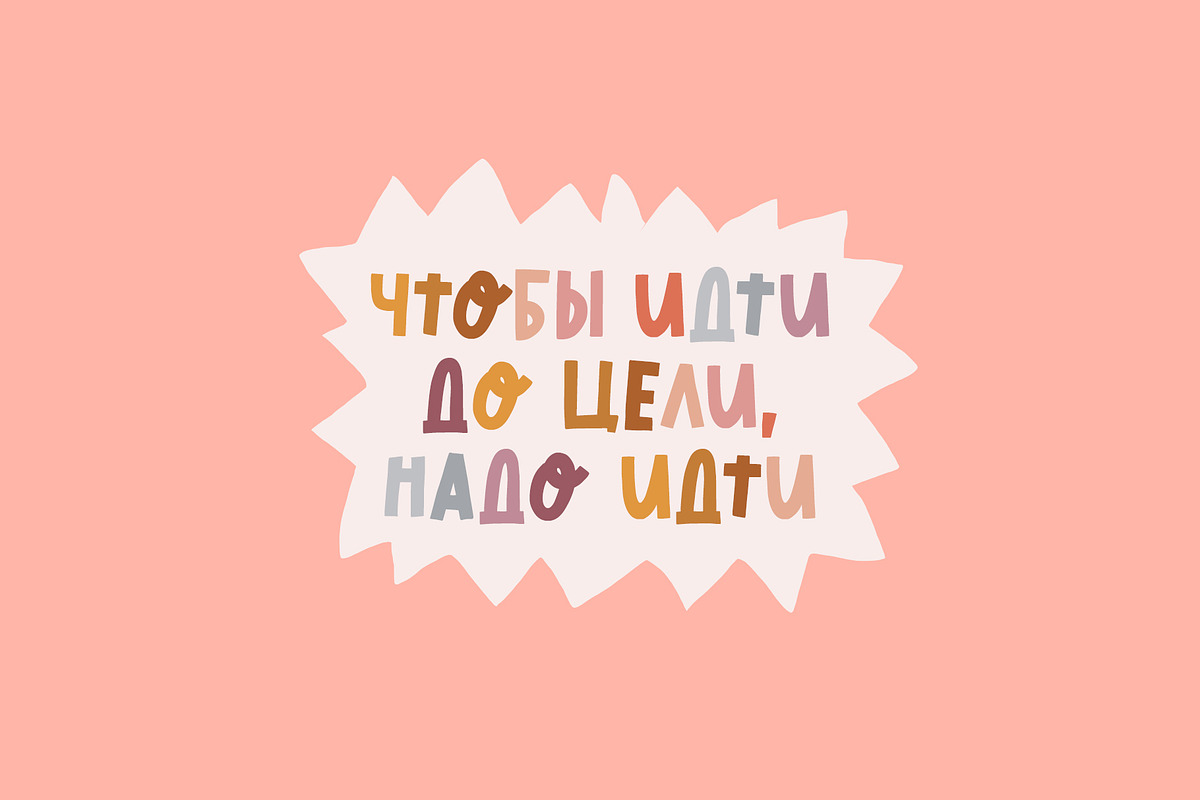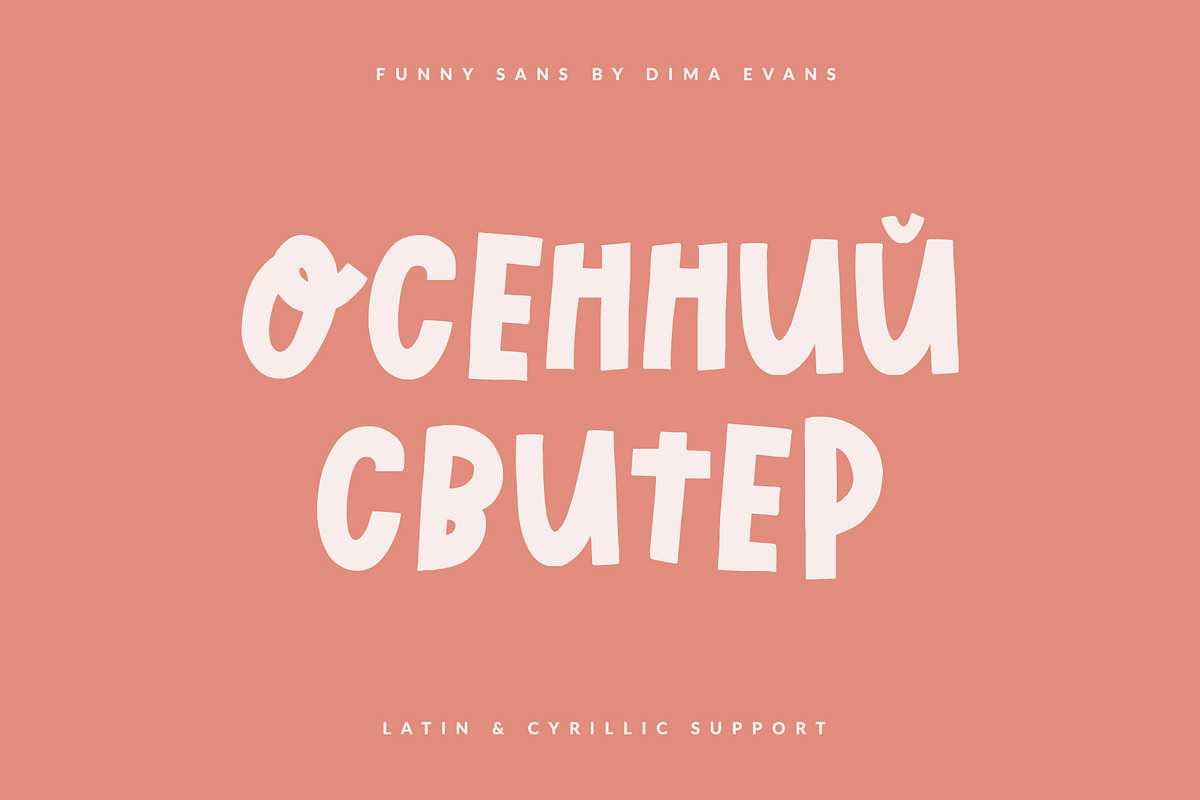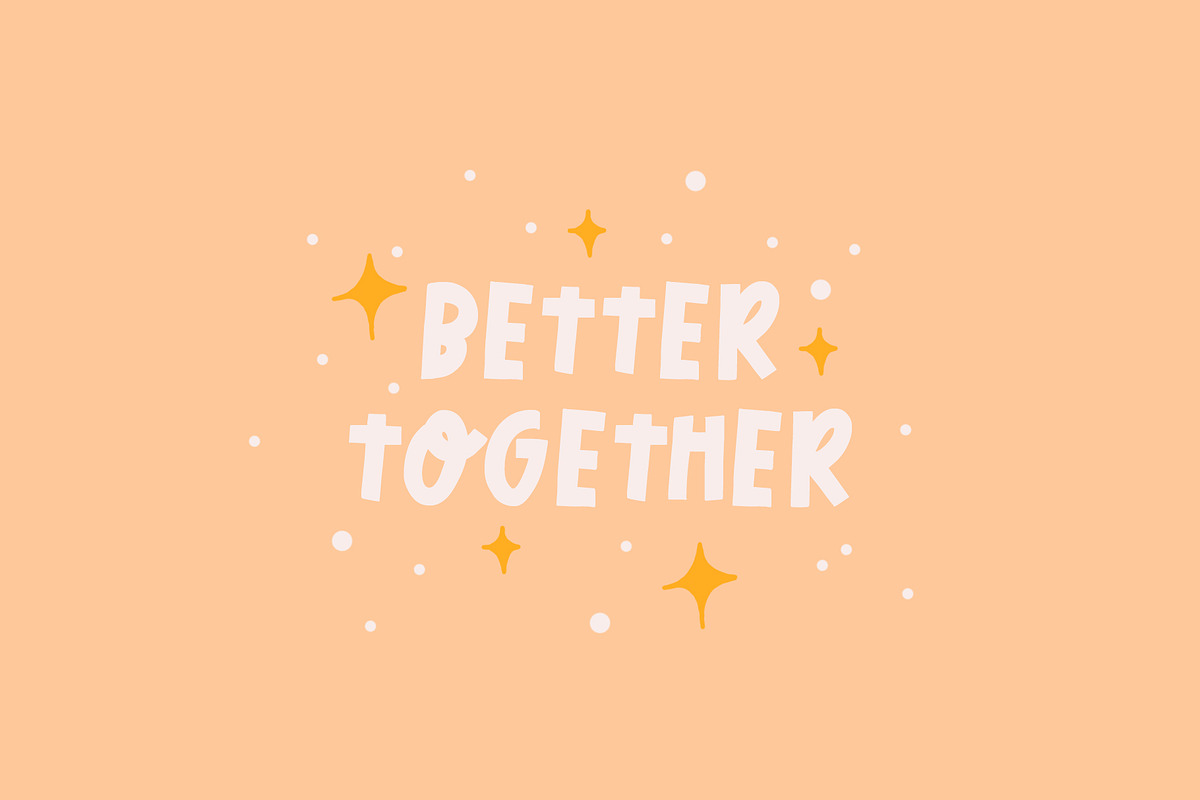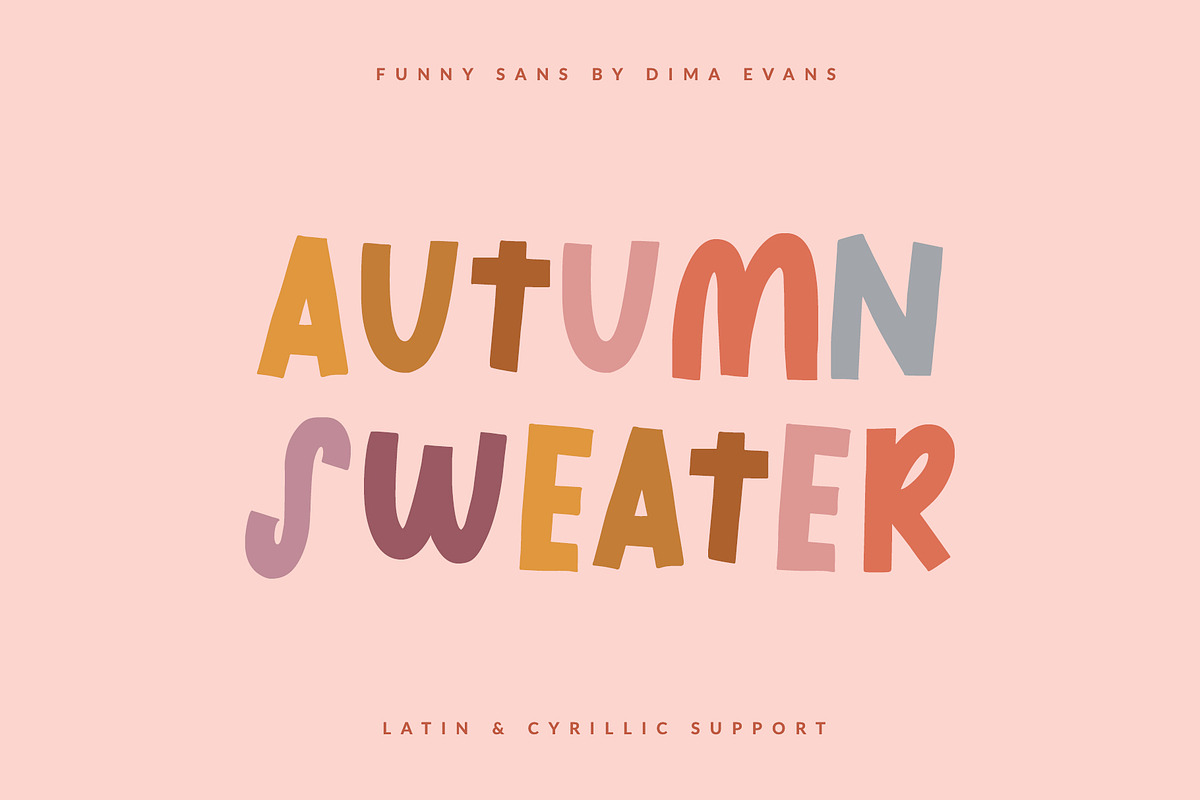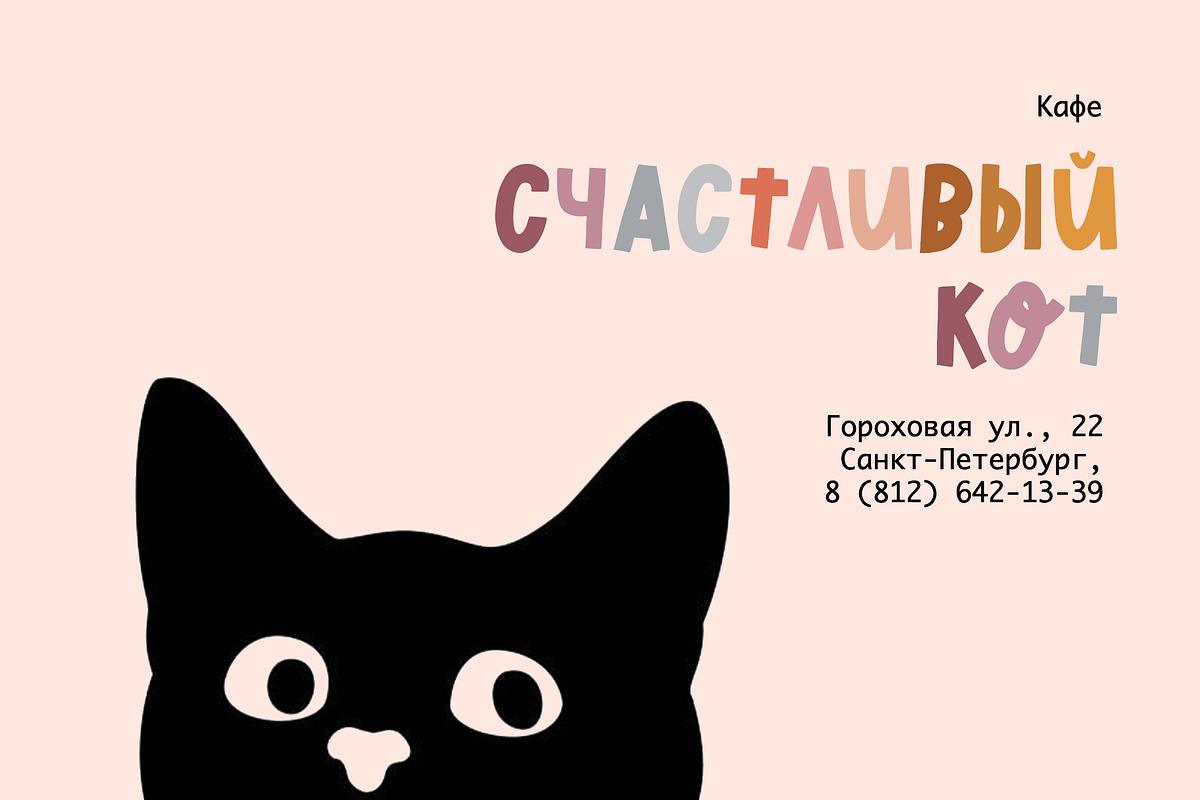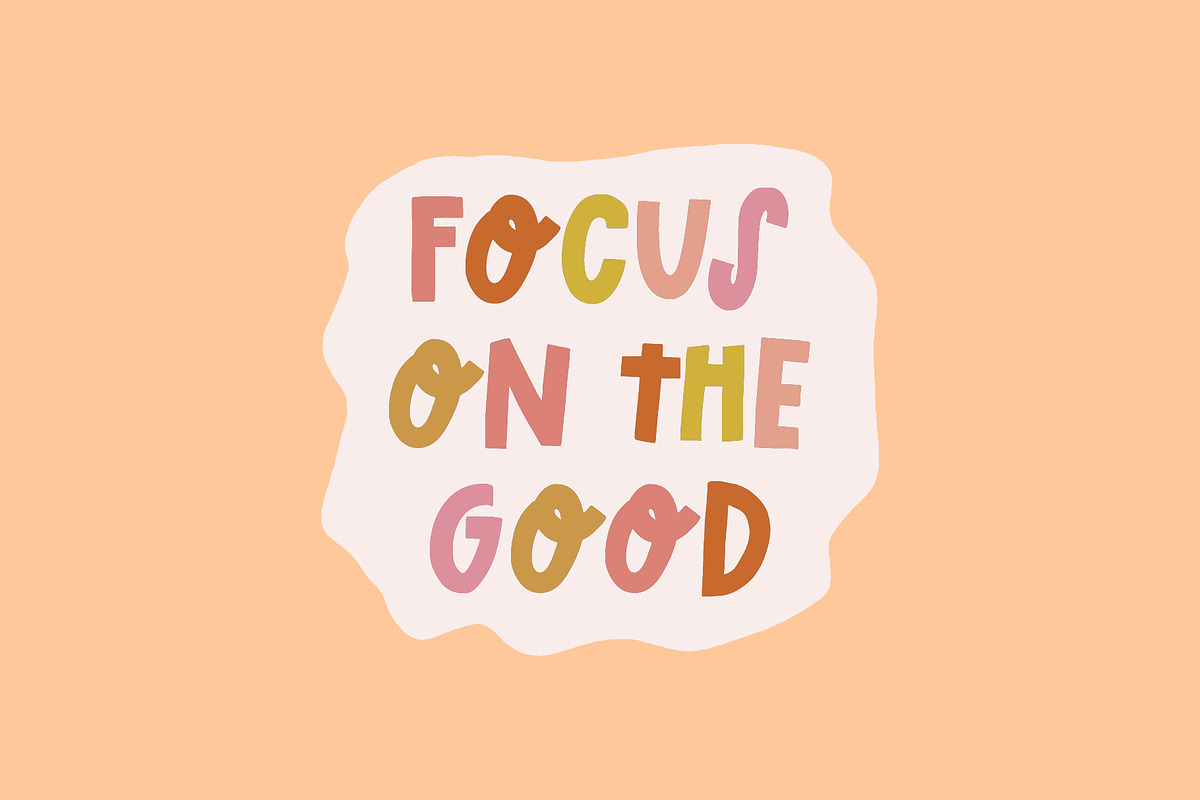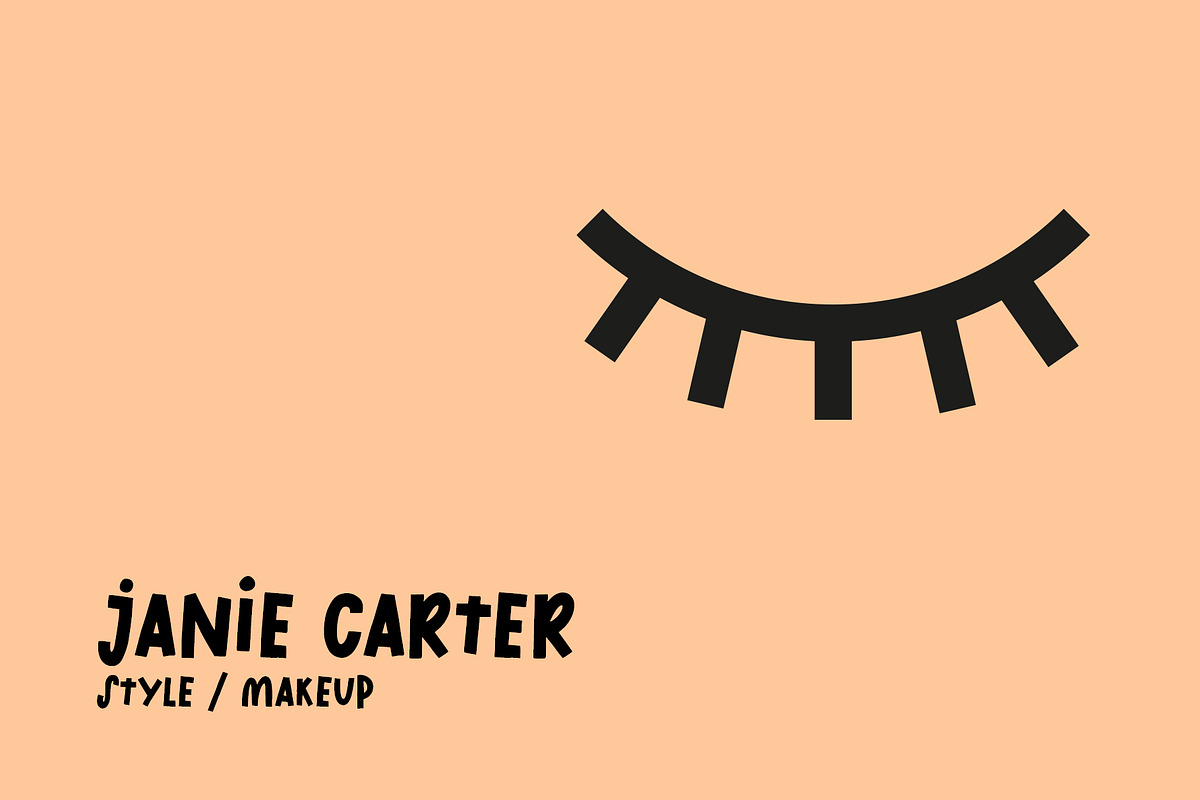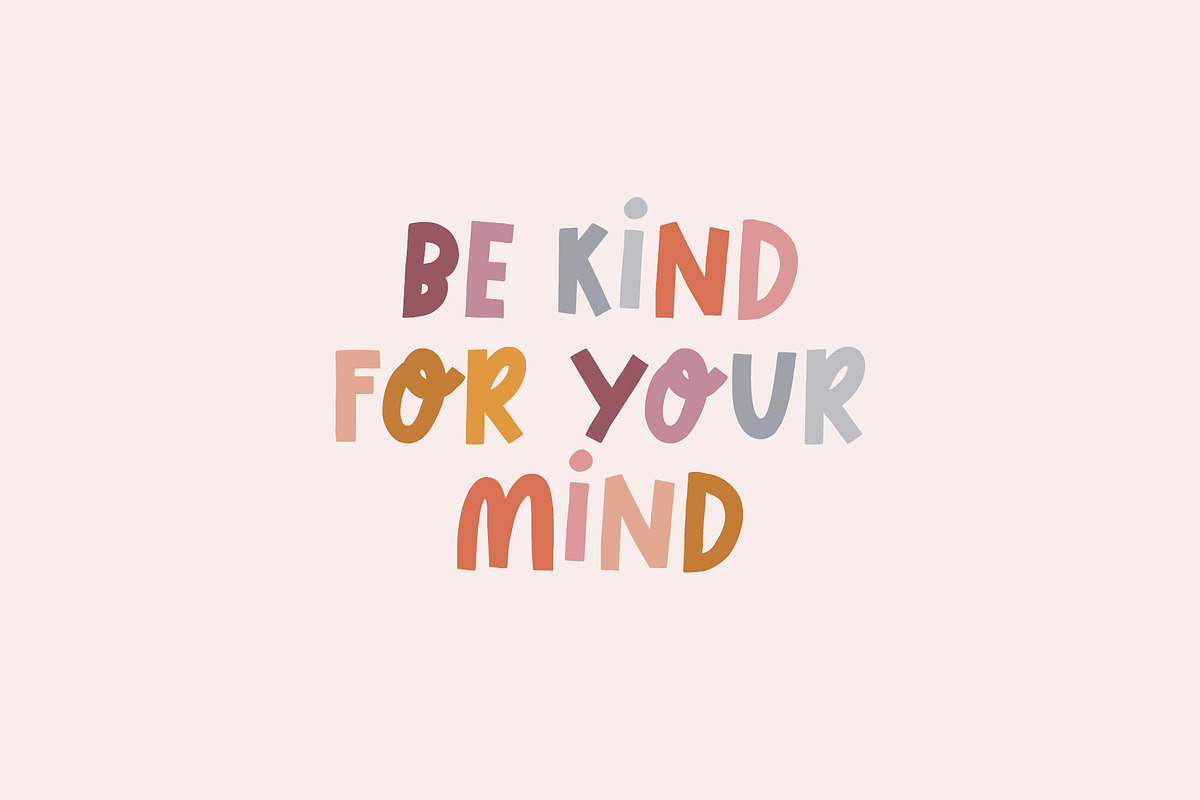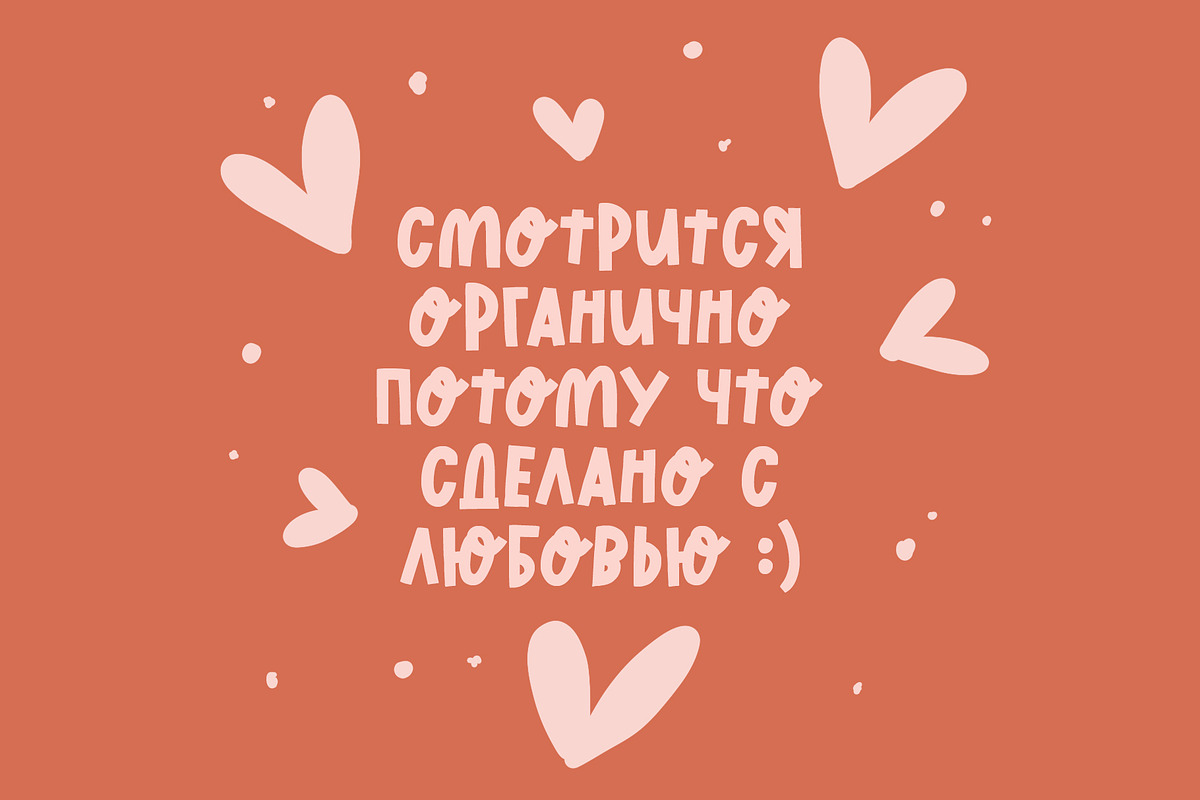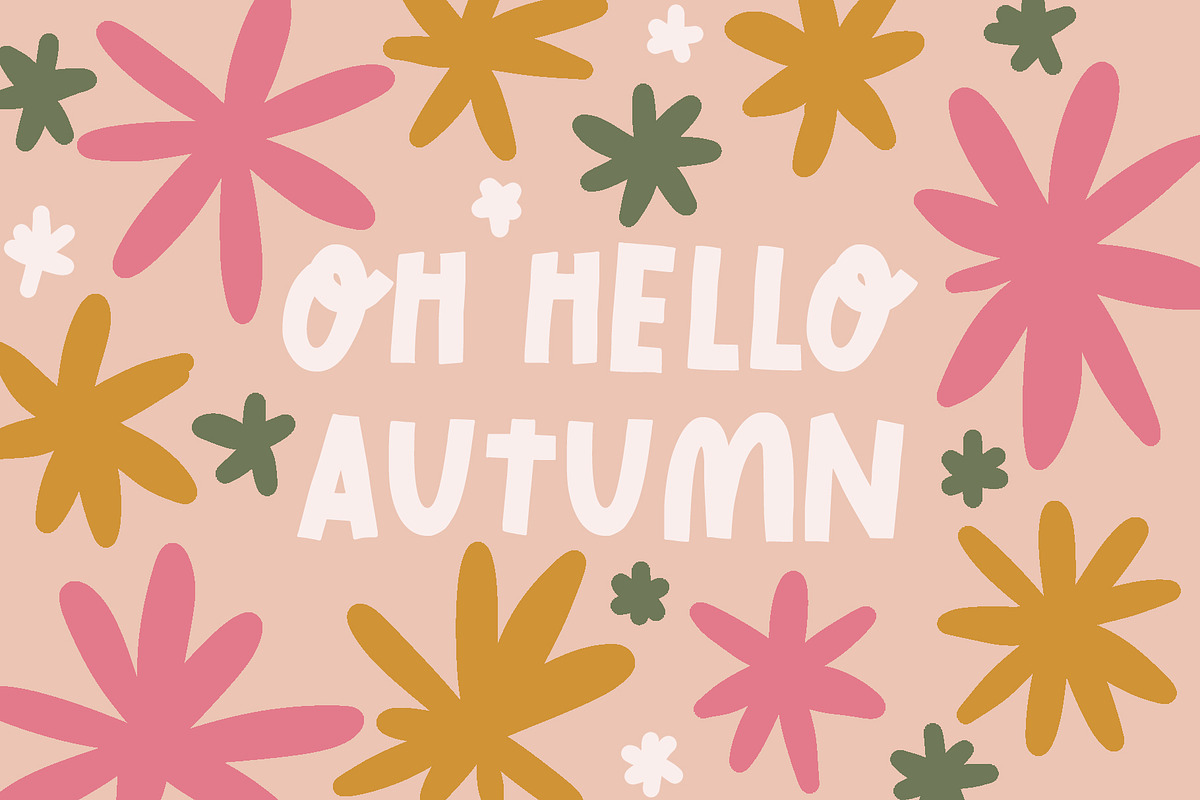
Autumn Sweater Cute Latin/Cyrillic
Autumn Sweater Latin + Cyrillic
Autumn Sweater is a cute handwritten font with Cyrillic support. It is perfect for branding, wedding invitations, menu design, YouTube covers and many more
Font includes a full set of gorgeous uppercase and lowercase letters, numbers, a large selection of punctuation marks & Cyrillic support
Autumn Sweater - это милый рукописный шрифт с поддержкой кириллицы. Он идеально подходит для брендинга, свадебных приглашений, дизайна меню, обложек YouTube и многого другого
Шрифт включает в себя полный набор великолепных прописных и строчных букв, цифр, большой выбор знаков препинания и поддерживает кириллицу
- Regular Script
- Latin languages support
- Cyrillic languages support